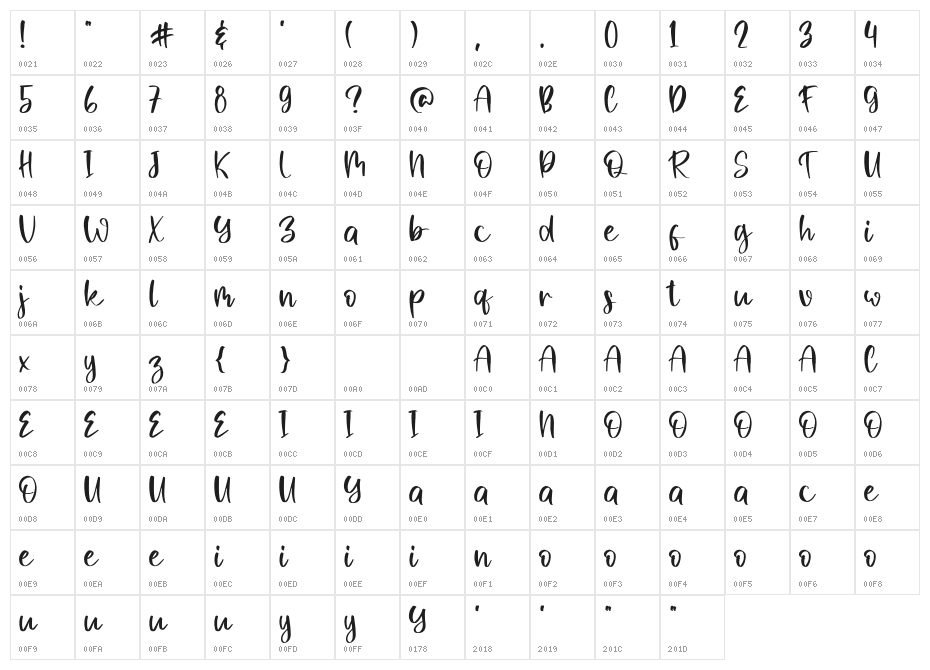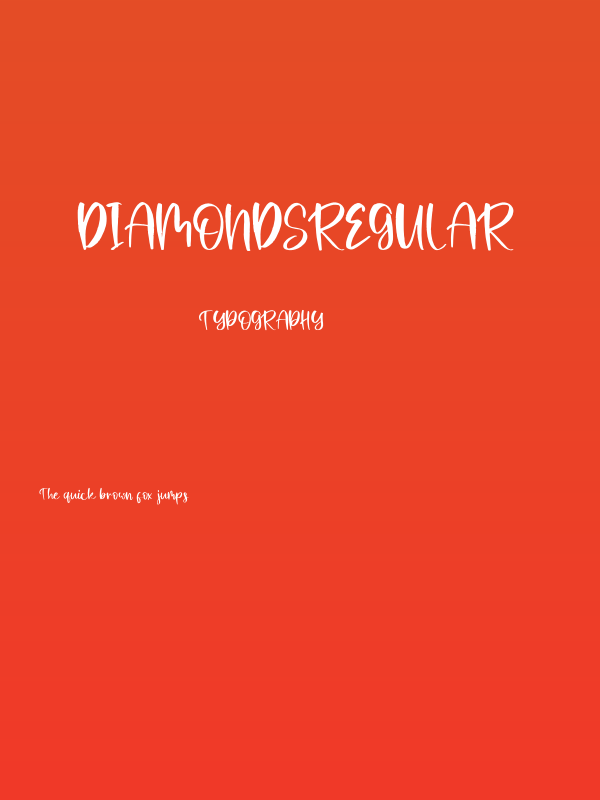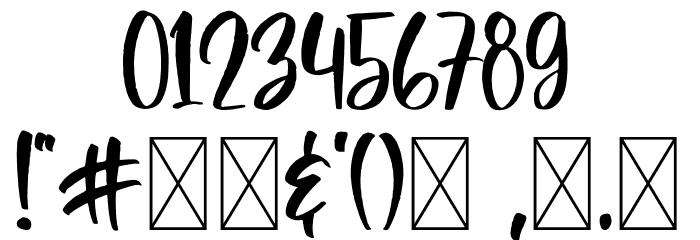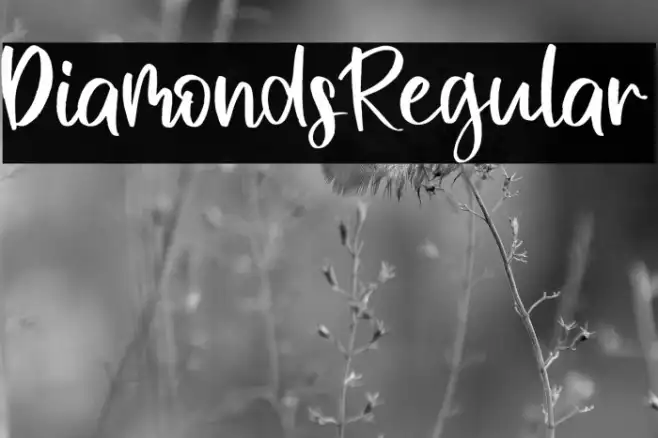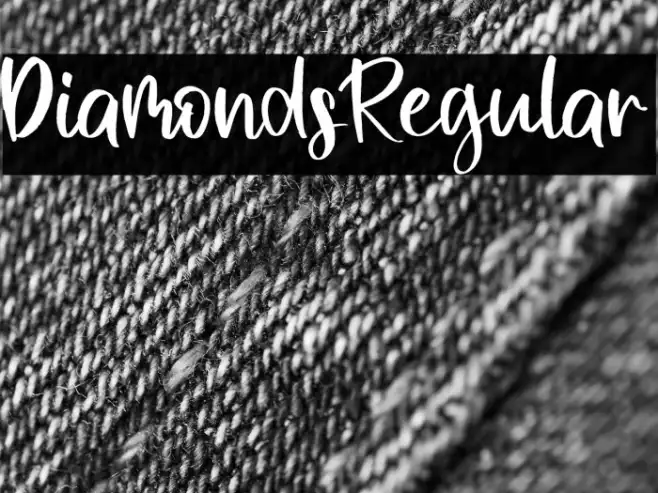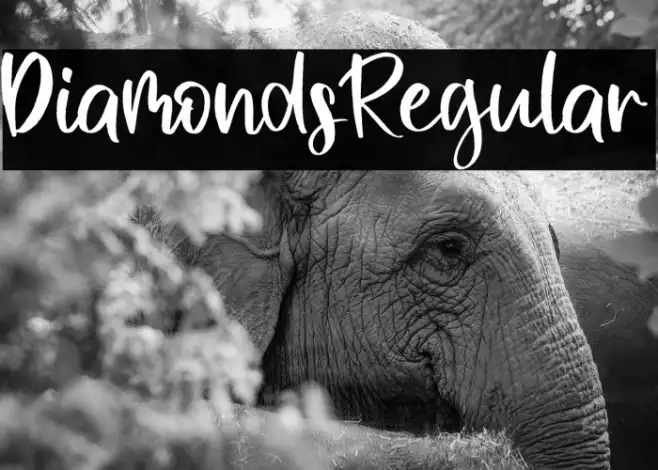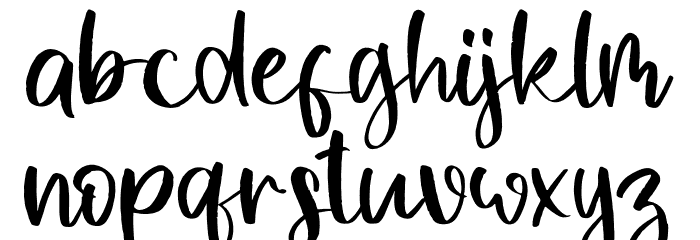
DiamondsRegular Font
DiamondsRegular Description
This font features a playful and energetic script style with a handwritten appearance. The characters are bold and expressive, with a consistent flow that mimics natural handwriting. The uppercase letters are tall and slightly narrow, while the lowercase letters maintain a fluid and connected form. The numbers are equally dynamic, adding to the overall lively aesthetic. Special characters are included, maintaining the same whimsical style. This font is perfect for projects that require a personal touch or a casual, friendly vibe.
| Proposed Projects | Ideal for greeting cards, invitations, branding, and social media graphics. |